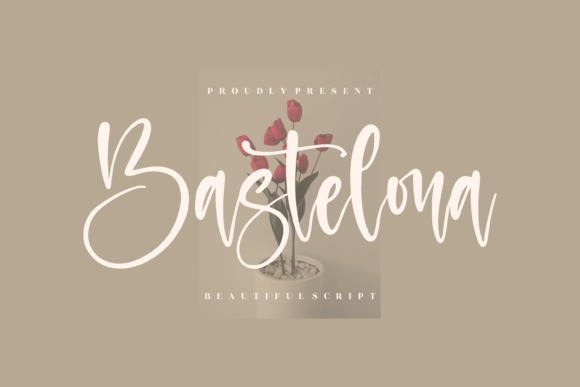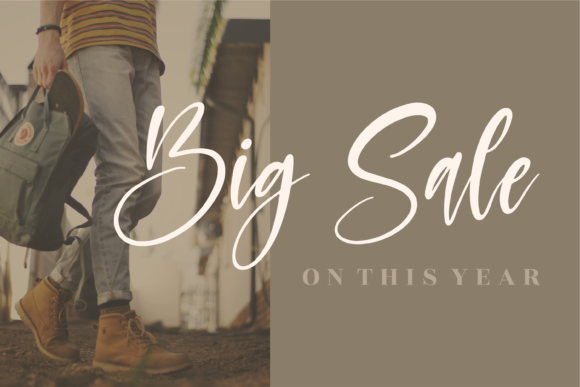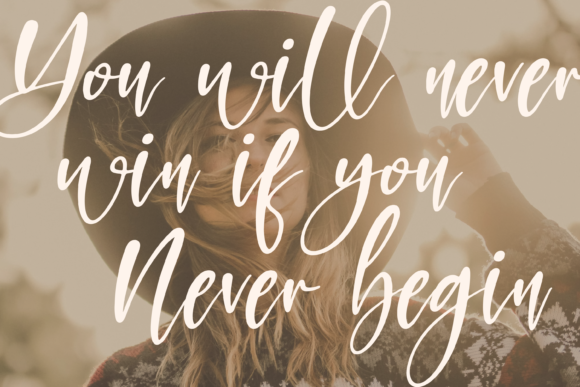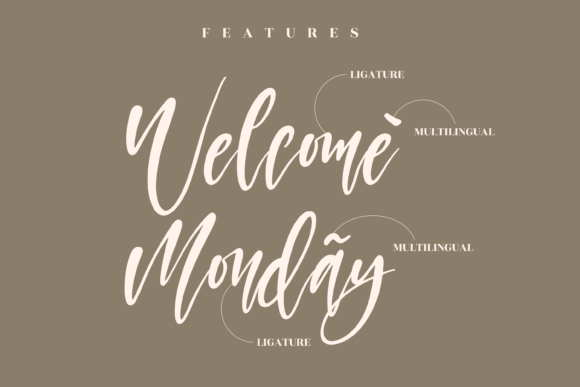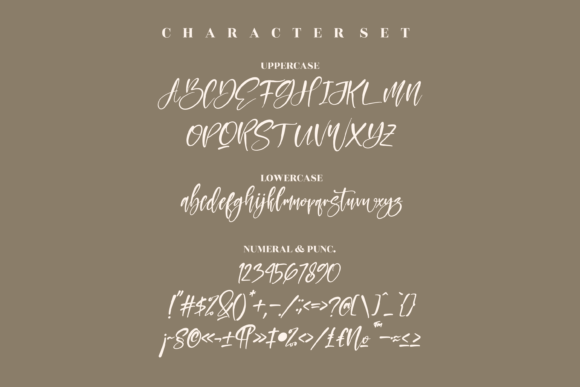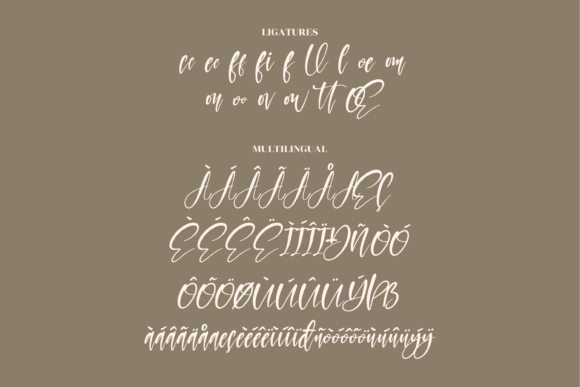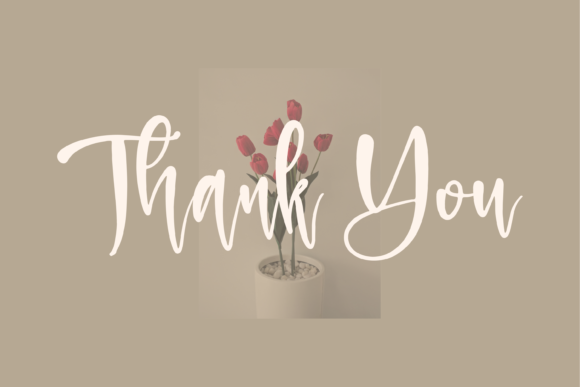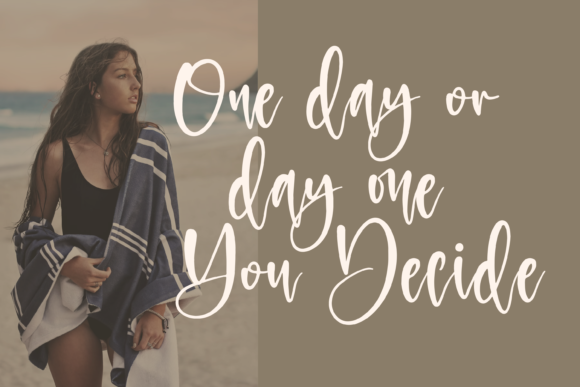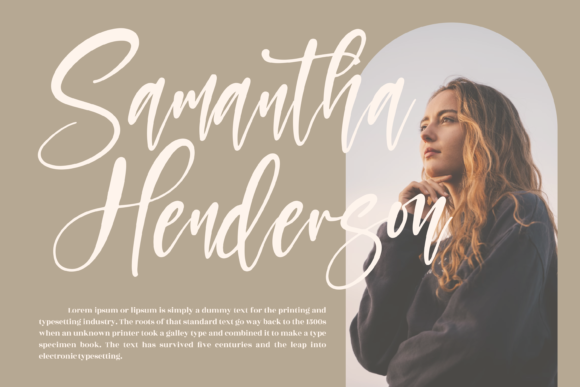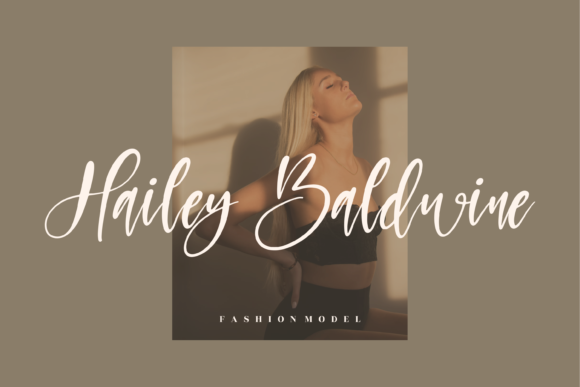
Bastelona Font
About Bastelona Font
Bastelona is a beautiful script font suitable for any projects such as logos, branding projects, homeware designs, product packaging, mugs, quotes, posters, shopping bags, t-shirts, book covers, name cards, invitation cards, and greeting cards. It’s also a perfect fit for labels, photography, watermark, special events, and all your other lovely projects that need a beautiful script taste.